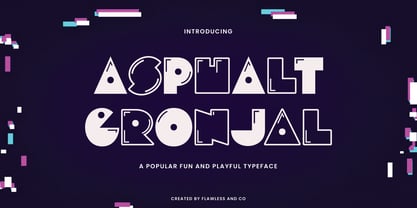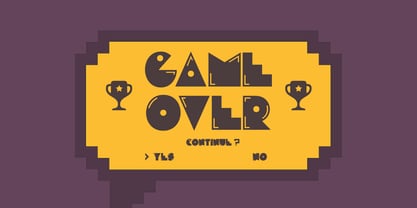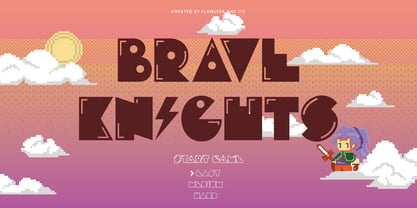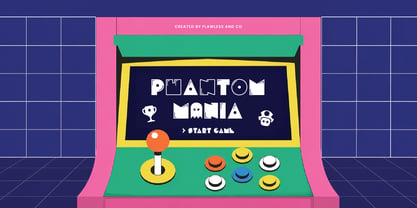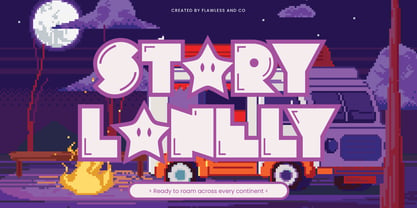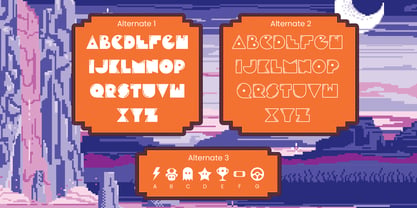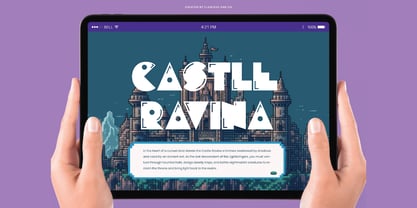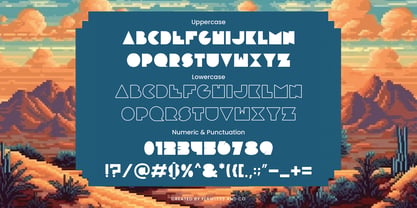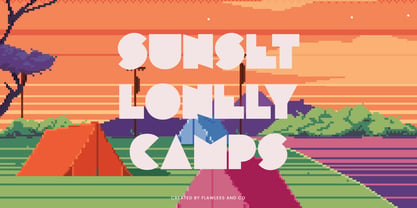
Asphalt Gronjal
The Asphalt Gronjal Font Family was designed by Achmad Yani and published by Flawlessandco. Asphalt Gronjal contains 1 styles. More about this family
Asphalt Gronjal Playful is a bold, quirky display font inspired by retro video games and arcade culture. With its geometric forms, pixel-like cuts, and playful energy, this typeface brings a nostalgic charm and modern fun to any design. Perfect for game titles, kids’ branding, playful posters, and digital interfaces, Asphalt Gronjal Playful captures the excitement of classic gaming with a fresh twist. Each letterform is crafted to convey movement and joy, while maintaining clear readability. Paired with its alternate styles and unique shapes, this font lets you explore creative layouts that pop off the screen.
Features :
Multilingual, Uppercase alphabet A-Z, Lowercase alphabet a-z, Numbers 0-9, Some punctuation, Alternates & Ligatures